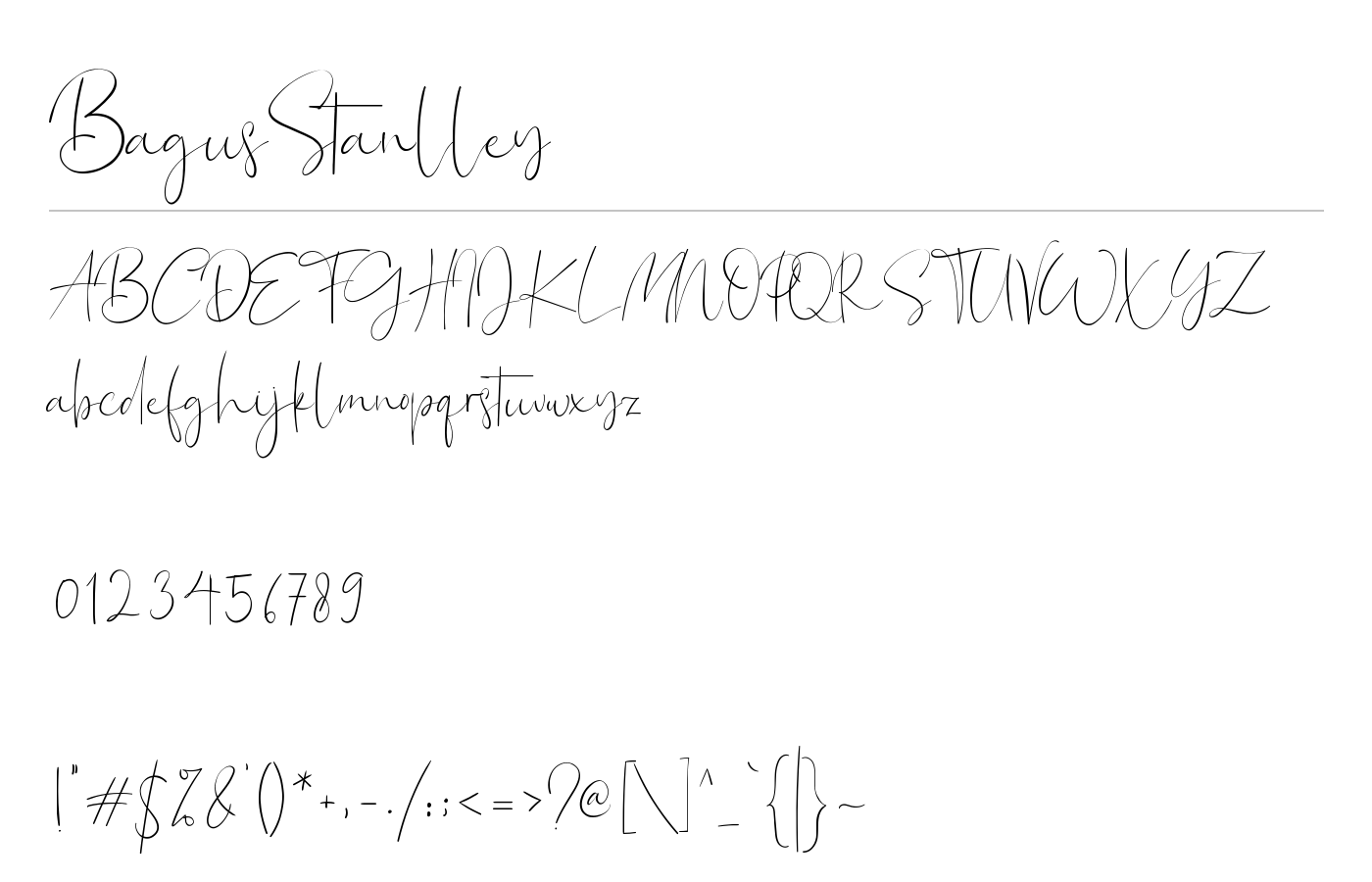
Bagus Stanlley is a delicate, handwritten script font characterized by its thin, flowing lines and elegant, airy letterforms. It conveys a personal, artistic feel with its tall, slender characters and subtle flourishes, making it ideal for creative projects, invitations, and branding that seek a refined yet approachable touch. This font’s light, graceful style works best in headlines or decorative text where a sense of sophistication and individuality is desired.
Bagus Stanlley Font
About Bagus Stanlley Font